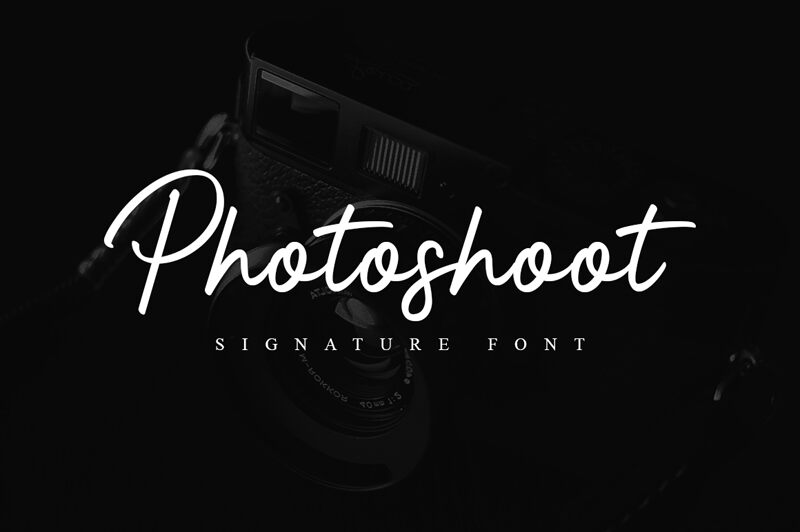
Photoshoot by Suby Studio exudes a captivating handwritten flair, blending elegance and personality. The flowing, organic strokes create a sense of movement, while the dynamic variations in line thickness add depth and character. This font's distinctive personality effortlessly conveys a sense of warmth and approachability, making it an intriguing choice for branding, stationery, and editorial design.
The versatility of Photoshoot allows it to seamlessly integrate into a wide range of design projects. Its natural, handcrafted aesthetic lends itself beautifully to creative endeavors, from logo designs and packaging to invitations and social media content. The font's adaptability ensures it can elevate the visual identity of various industries, from fashion and lifestyle to food and hospitality.